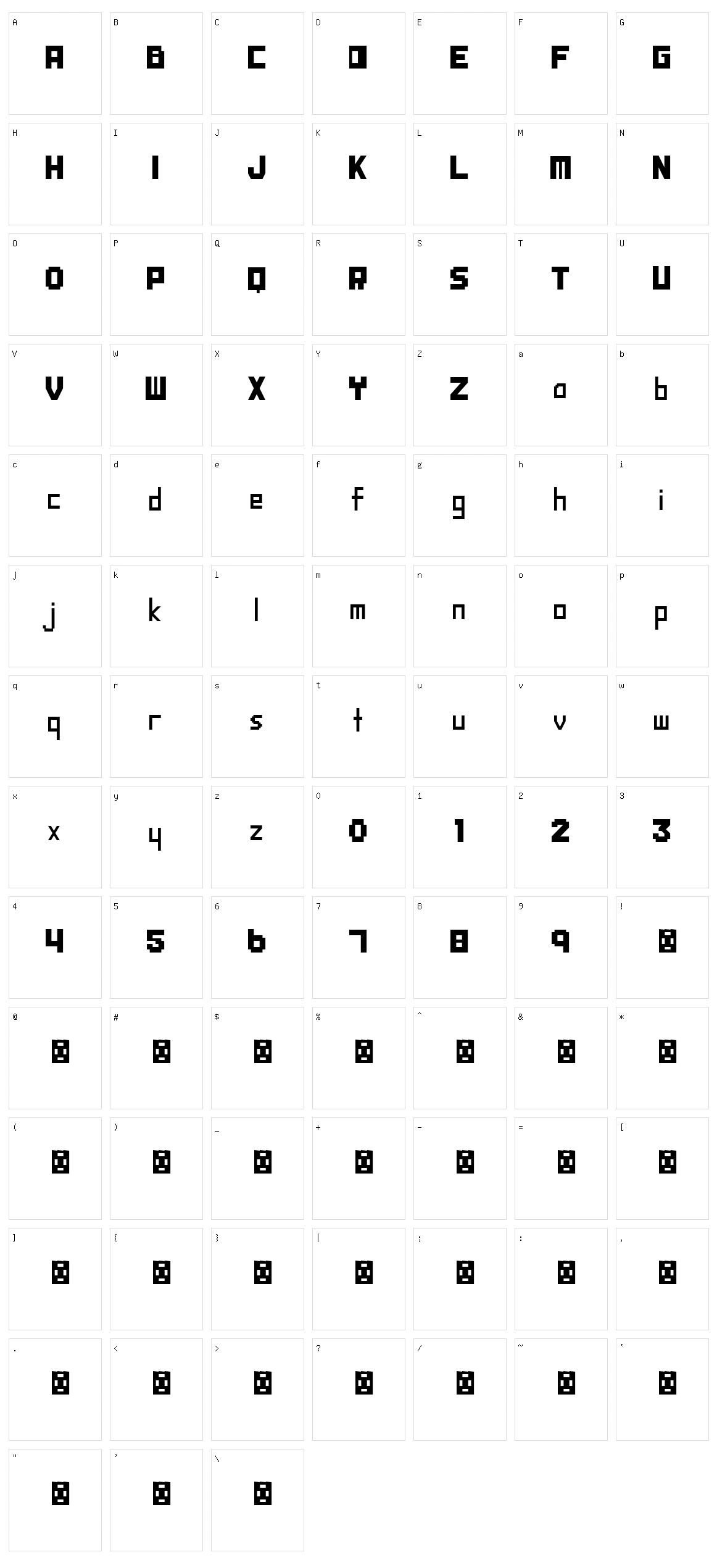
The free font Progress is carefully designed by Anchor Fonts, showcasing a thoughtful balance of creativity and usability and falls under the Square font style. When you download the ZIP file, it contains only 6.13 KB of font files, making it lightweight and quick to download. Please review the license details below to understand permitted usage and distribution rights. If license information is not available, we recommend using this font for personal projects only or contacting the author directly for commercial usage permissions.